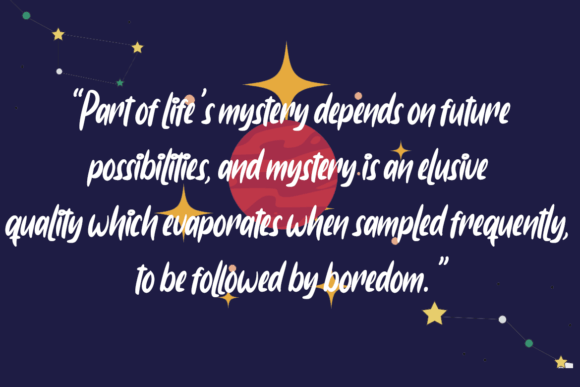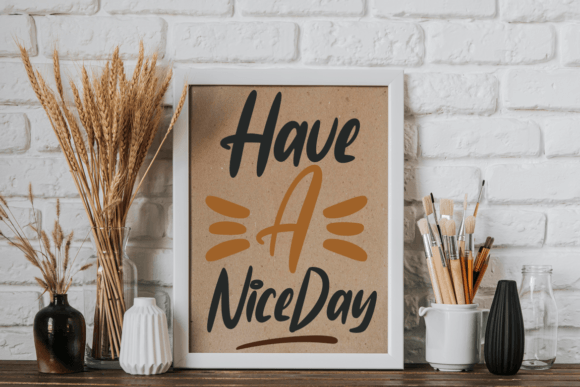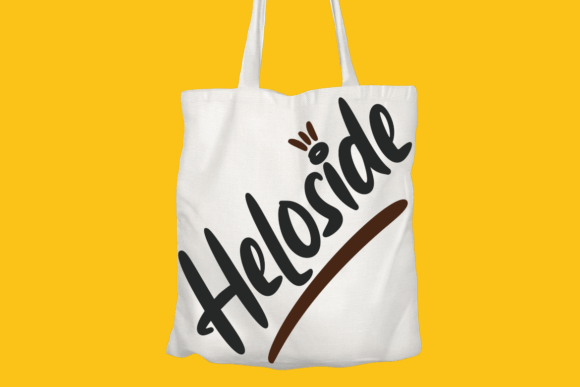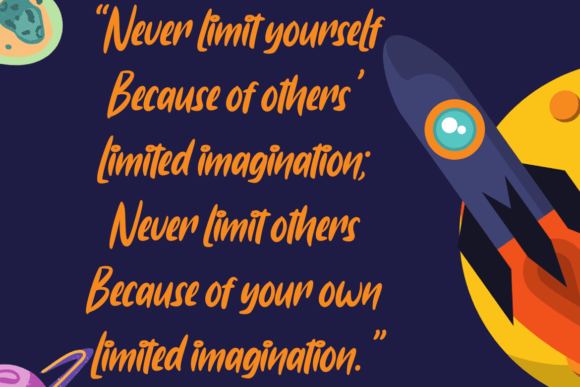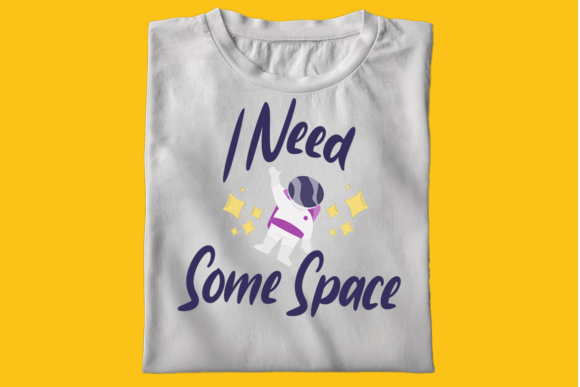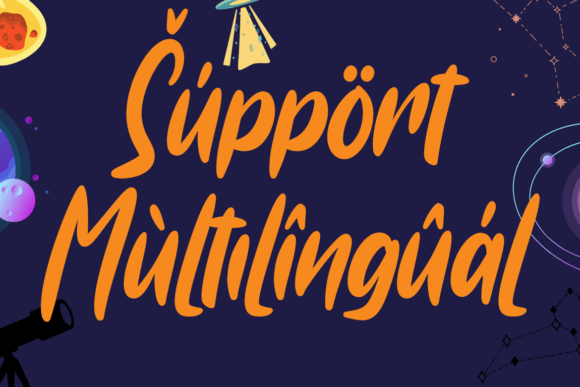
Get Ready to Add a Splash of Fun to Your Designs!
Have you ever been working on a project, and suddenly you’re hit with a burst of creativity? The ideas start flowing, and you can’t wait to bring your vision to life. For designers, this moment is pure magic – and it’s exactly what you’ll experience when you add the Heloside Font to your library.
This playful display font is designed specifically for magazines and crafts, making it the perfect addition to any creative project. With its fun and carefree vibe, Heloside Font is sure to bring a smile to your face and inspire your next big idea. Whether you’re working on a design for a children’s book or a handmade card, this font is sure to elevate your work and make it truly special.
Key Features of Heloside Font
- Unique Characteristics: The font features a unique blend of modern and classic elements, with a distinctive side-bearing design that adds a touch of elegance to any text.
Heloside Font Review
Overall, I think Heloside is a decent font, but it has its strengths and weaknesses.
- Unique aesthetic: Heloside has a distinctive look that can add some visual interest to your designs.
- Good for titles and headings: The font is bold and attention-grabbing, making it suitable for titles and headings.
- Works well for digital displays: Heloside is designed to be readable on digital screens, which is a plus.
- Limited legibility: While Heloside is bold and attention-grabbing, it can be difficult to read in smaller sizes or at a distance.
- Lacks versatility: The font is quite distinctive, but it may not be suitable for all types of designs or projects.
- May not be suitable for large blocks of text: Due to its bold nature, Heloside may not be the best choice for large blocks of text or body copy.
Overall, I would recommend Heloside for projects where you need a bold, attention-grabbing font for titles and headings. However, it may not be the best choice for more subtle or nuanced designs.
Tips for Getting the Most Out of Heloside Font
For best results, use Heloside font in combination with a bold, sans-serif font for headings.
Experiment with different font sizes and styles to create visual hierarchy and emphasis.
Heloside font is perfect for:
- Brand logos and identities
Alternatives to Heloside Font for Designers
The Heloside Font is a unique and versatile font, but sometimes designers may need alternatives to suit their project’s specific needs. Here are a few options to consider.
Compared to Heloside Font, Open Sans is more straightforward and lacks the unique character of Heloside, but it is more widely supported and easier to read at smaller font sizes.
Compared to Heloside Font, Lato is more minimalist and lacks the unique flair of Heloside, but it is more widely supported and easier to read at smaller font sizes.
For optimal readability, we recommend using Heloside Font at a font size between 12pt and 24pt, with a line height of at least 1.2 times the font size. This will ensure clear and legible text, regardless of the screen resolution or viewing distance.
Q: Can I customize Heloside Font to fit my specific design needs?
Yes, Heloside Font is a highly customizable font with extensive OpenType features, including ligatures, swashes, and stylistic sets. You can use font editing software, such as FontLab or Glyphs, to customize the font to fit your specific design needs.